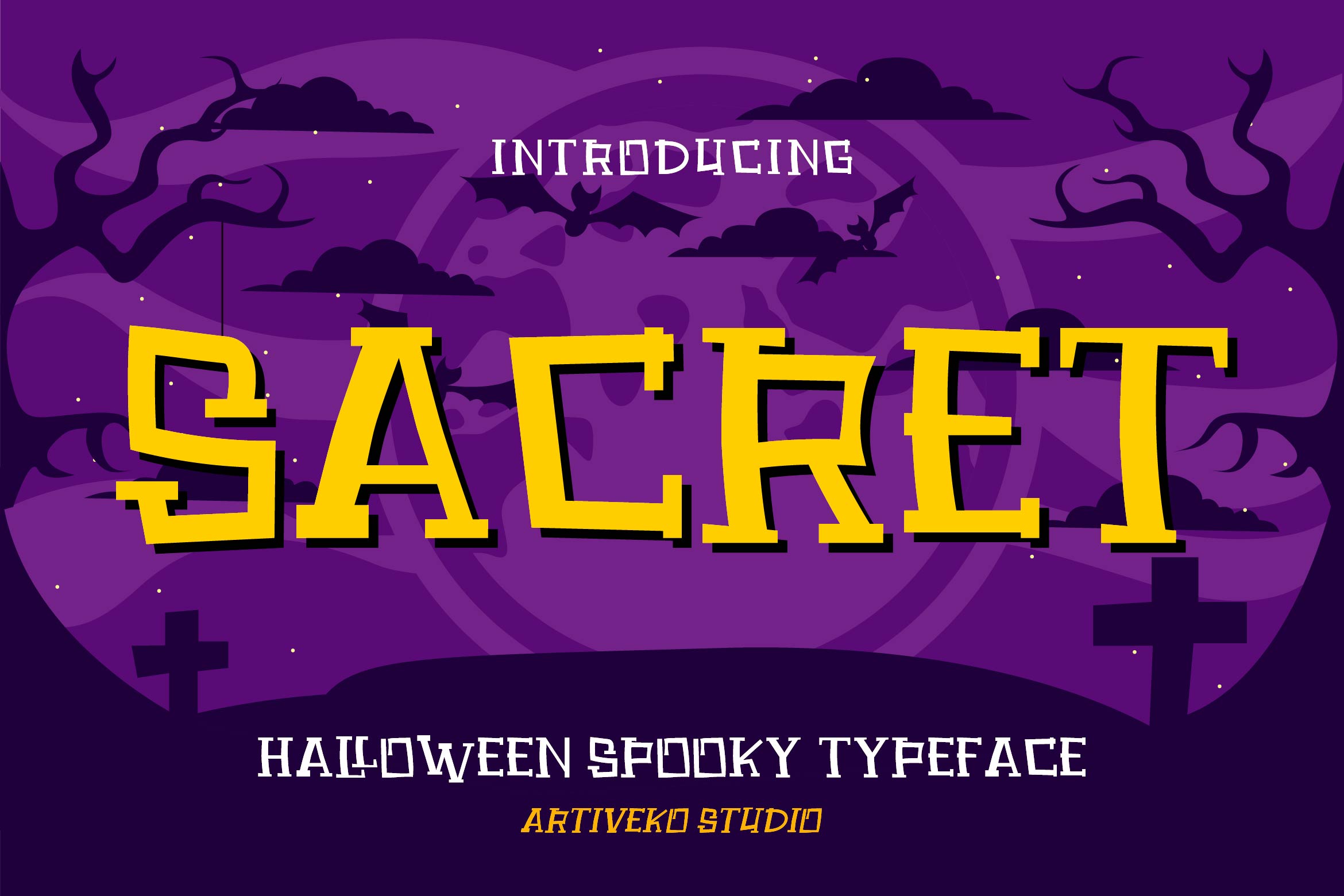
- Sacret Creepy Halloween Font
Sacret is a creepy and playful Halloween font designed to bring spooky vibes and haunting fun to your creative projects. With jagged edges, quirky curves, and a chilling personality, Sacret is perfect for Halloween party invitations, posters, merchandise, greeting cards, YouTube thumbnails, and themed social media content.
Its bold and eerie letterforms create an instantly recognizable Halloween atmosphere while remaining highly readable. Sacret captures the spirit of October with just the right mix of horror and humor.
Make your Halloween extra thrilling with Sacret — the spooky font that’s scary, fun, and full of wicked charm.